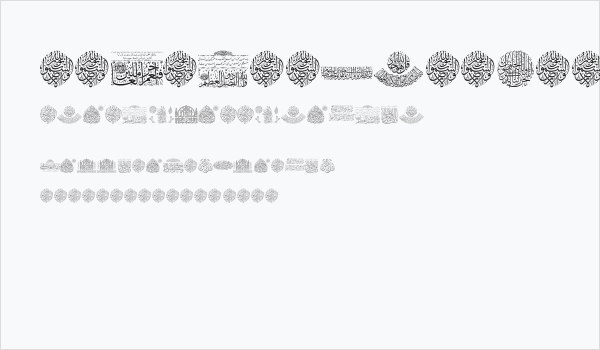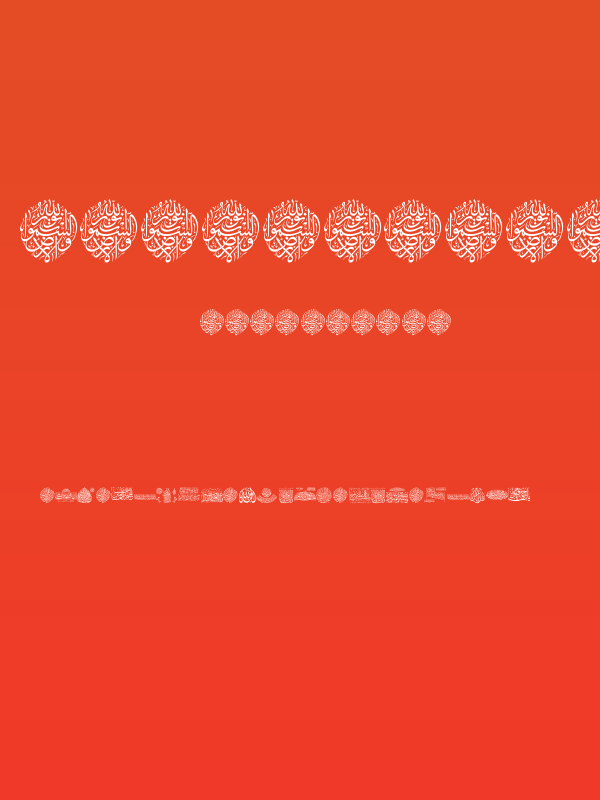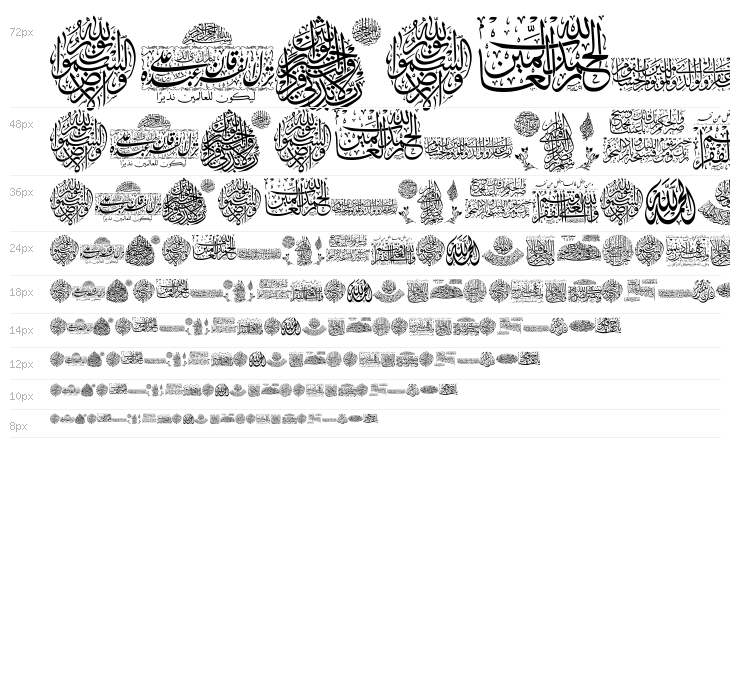
Aayat Quraan_034 Font
Aayat Quraan_034 Description
Highly decorative Arabic calligraphic script with intricate, circular motifs and dense, ornamental detailing. The glyphs are complex and stylized, resembling traditional Islamic art and calligraphy rather than standard text characters.
| Overall Style | Decorative, Traditional, Islamic |
| Use Case | Decorative headings, religious artwork, ornamental borders |
| Proposed Projects | Religious texts, ceremonial documents, decorative borders, Islamic art, cultural posters. |